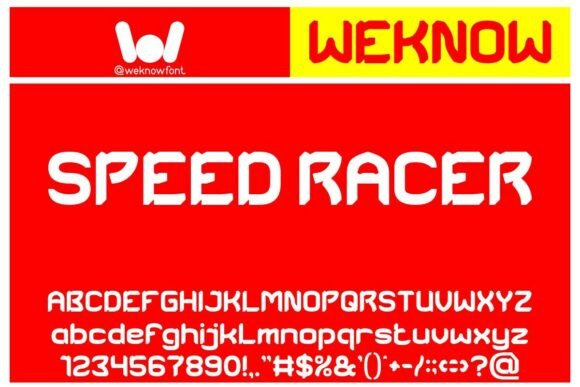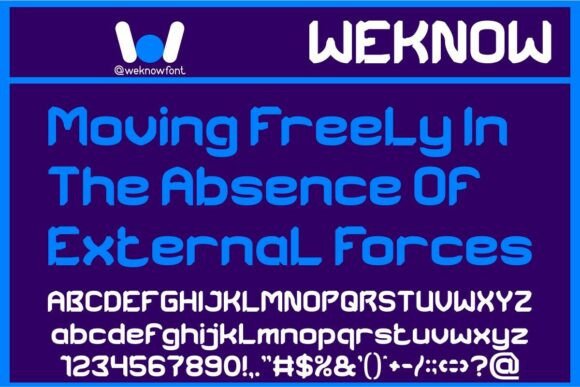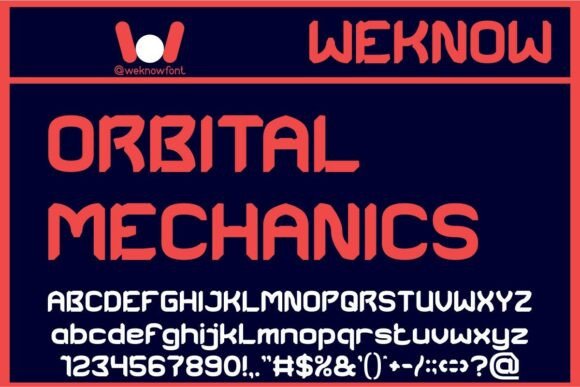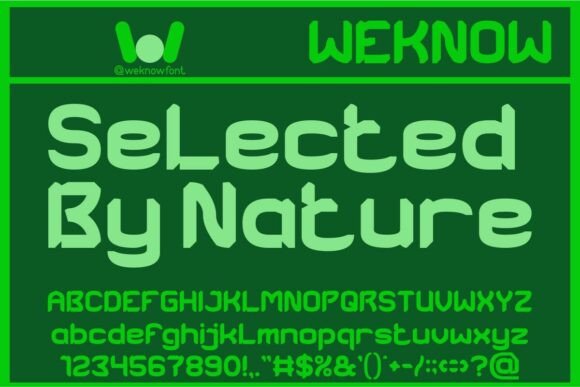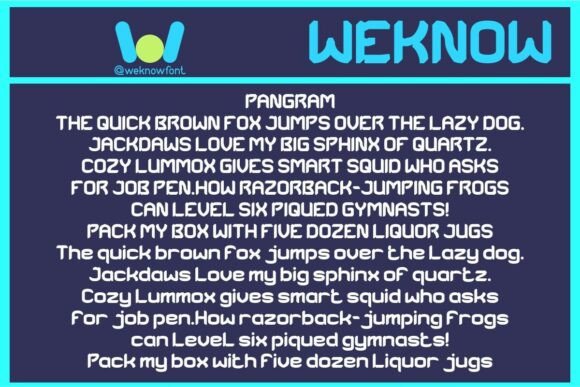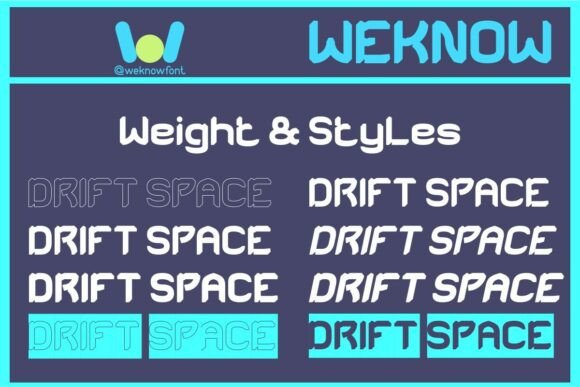
Introduction to Drift Space Font
Designed to innovate, Drift Space is a techno-sci-fi font that brings a futuristic zest to your creative endeavors.
With its thoughtfully geometrical design, blocky features, and understated rounded corners, it effortlessly bridges the gap between space-age aesthetics and cutting-edge technology Whether itโs a striking logo, a head-turning headline, or a stand-out brand identity, Drift Space breathes life into your creative output.